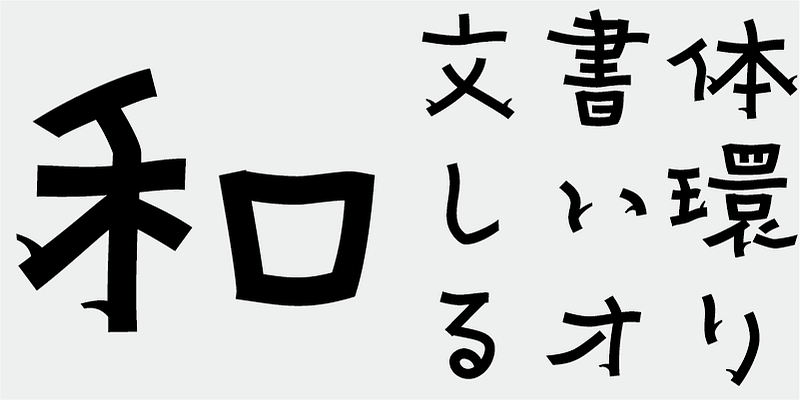
AB Ryushichi Font Free Download is a powerful and expressive Japanese display typeface that fuses traditional calligraphy with a bold, artistic flair. With its dynamic brush strokes, strong contrasts, and hand-drawn texture, this font is perfect for dramatic posters, historical themes, martial arts branding, and projects that require a sense of intensity and cultural richness.
The name Ryushichi evokes the imagery of flowing dragons and powerful motion, which is reflected in the font’s dramatic curves and organic flow. AB Ryushichi Font Free Download excels in large-scale applications such as headlines, banners, and title treatments where its unique character and visual energy can stand out.
This typeface brings a sense of movement and emotion to your design, making it ideal for work that needs to feel alive, passionate, and grounded in tradition. It pairs well with minimalist sans-serifs to highlight its brush style, or can be used solo for maximum visual impact.